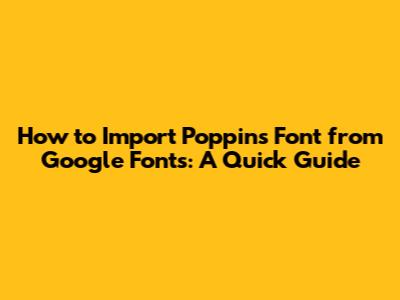
- Readability: Poppins is designed with clean lines and a geometric structure, making it highly readable on screens and in print. This is crucial for ensuring your message gets across clearly.
- Versatility: From headlines to body text, Poppins works well in various contexts. Its range of weights, from thin to extra-bold, gives you plenty of options to play with.
- Modern Aesthetic: Poppins has a contemporary, minimalist feel that suits a wide range of design styles. It’s perfect for projects that need a touch of modern sophistication.
-
Apply the Font in Your SCSS: Now that you've imported the font, you can use it in your SCSS rules. Use the
font-familyproperty just like in regular CSS:body { font-family: 'Poppins', sans-serif; }When you compile your SCSS file to CSS, the
font-familyrule will be included in the resulting CSS file. - Download the Font Files:
- Go to the Google Fonts website and search for "Poppins."
- Select the styles you need. Click the "Download family" button in the upper right corner. This will download a ZIP file containing all the font files.
- Organize Your Font Files:
- Extract the ZIP file to a folder on your computer.
- Create a
fontsdirectory in your project and copy the font files (.ttf, .woff, .woff2, .eot, .svg) into it.
- Define Font Face in CSS:
-
In your CSS file, use the
@font-facerule to define the Poppins font family. You'll need to do this for each weight and style you want to use.@font-face { font-family: 'Poppins'; src: url('fonts/poppins-regular.woff2') format('woff2'), url('fonts/poppins-regular.woff') format('woff'); font-weight: 400; font-style: normal; font-display: swap; } @font-face { font-family: 'Poppins'; src: url('fonts/poppins-bold.woff2') format('woff2'), url('fonts/poppins-bold.woff') format('woff'); font-weight: 700; font-style: normal; font-display: swap; }- Adjust the